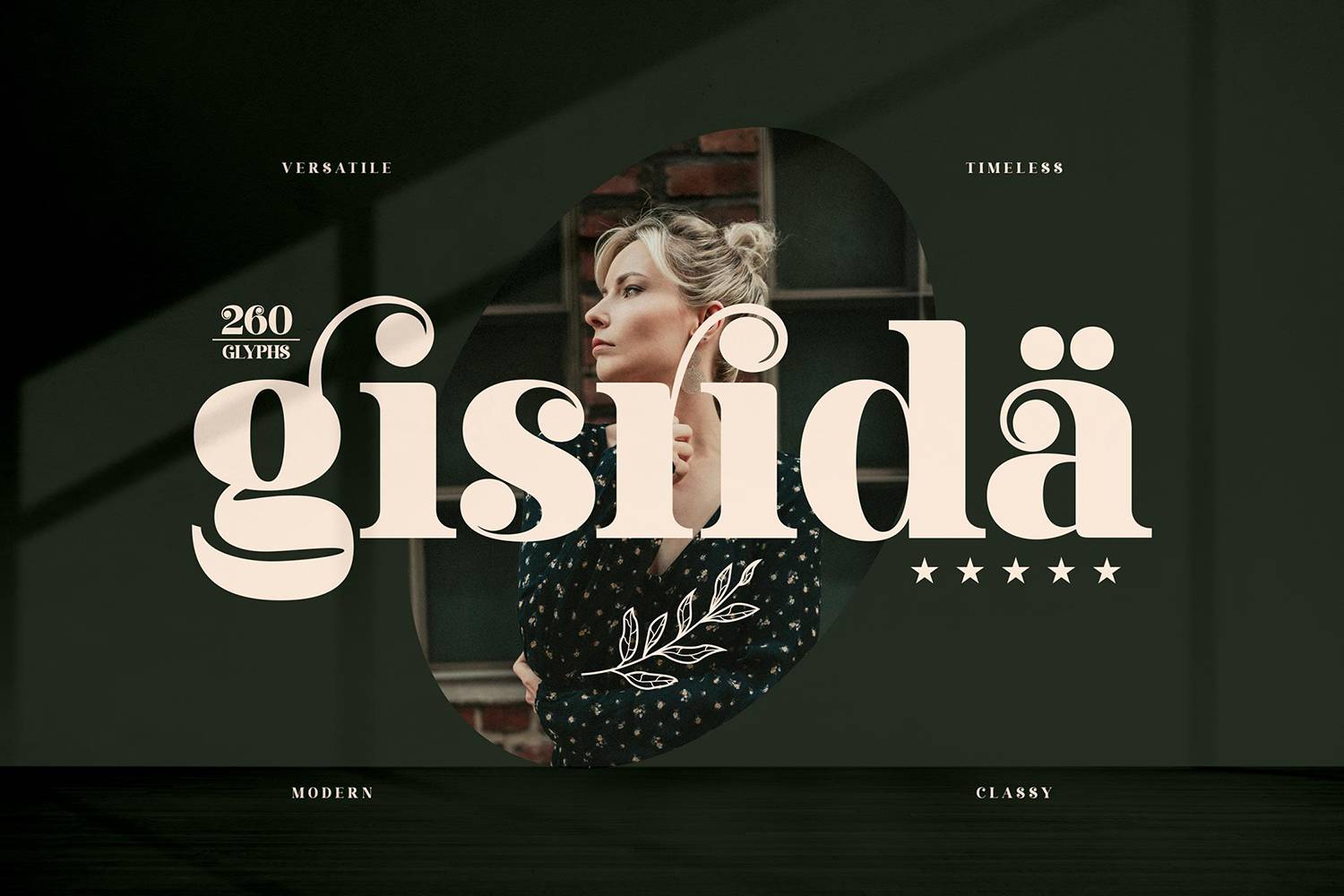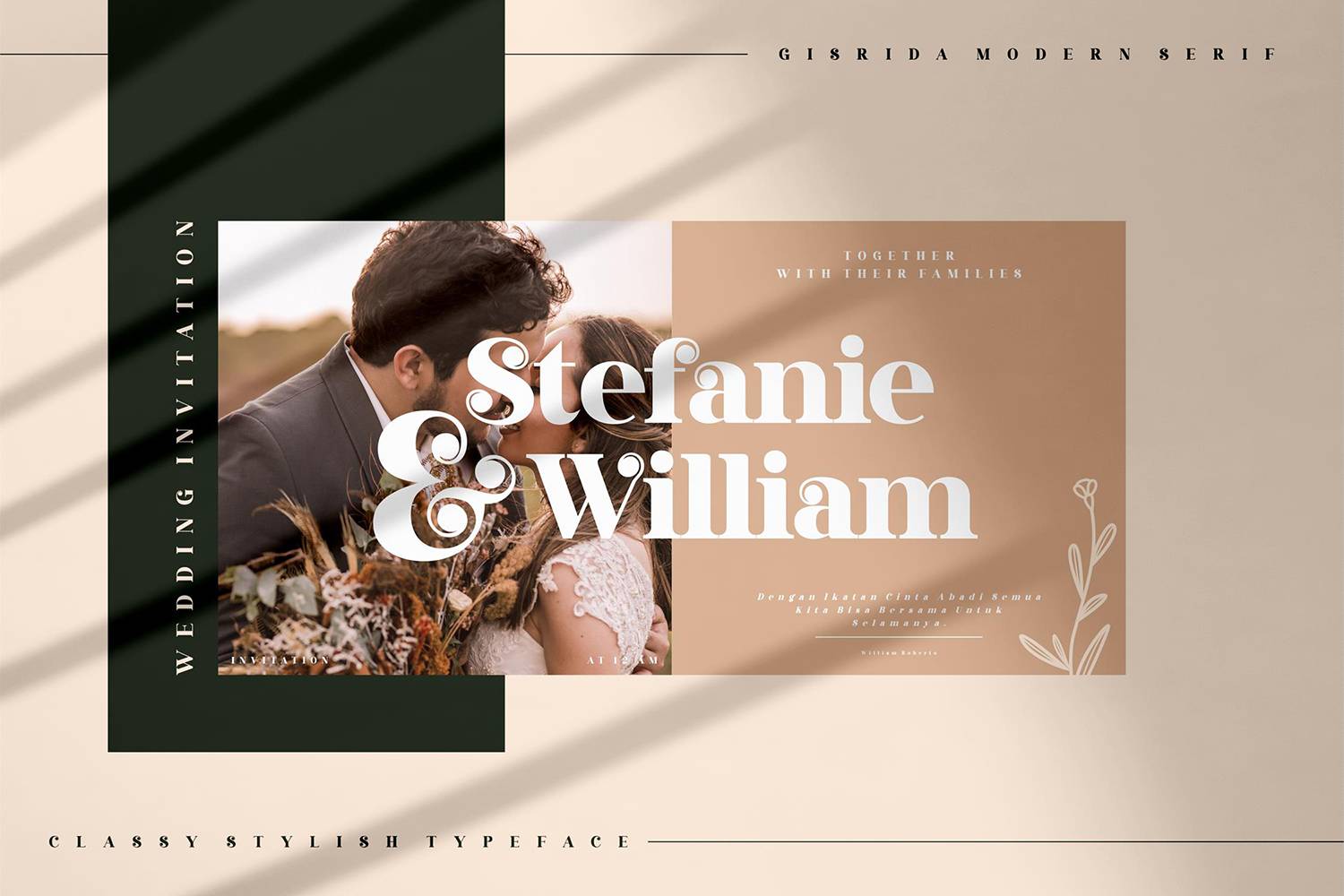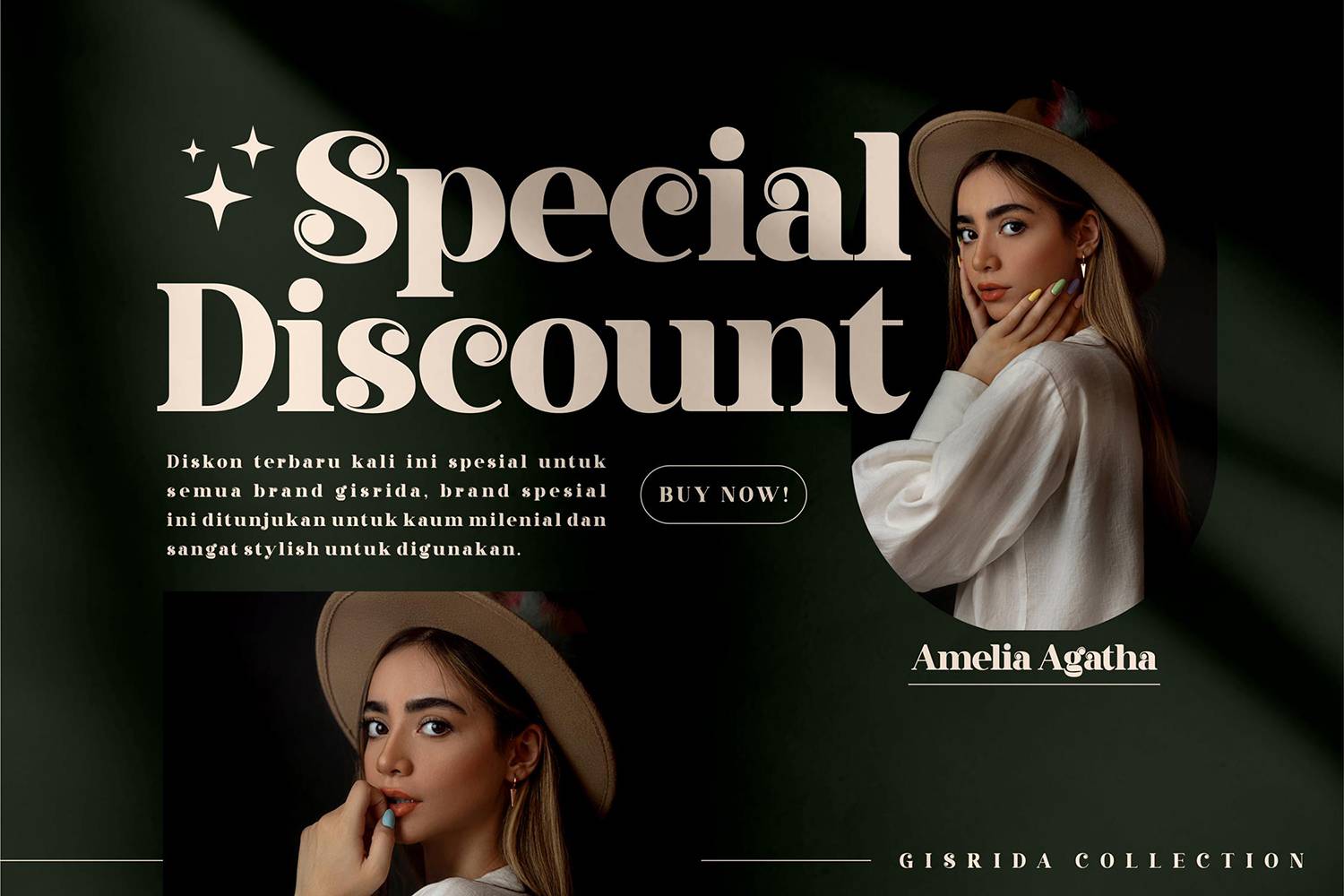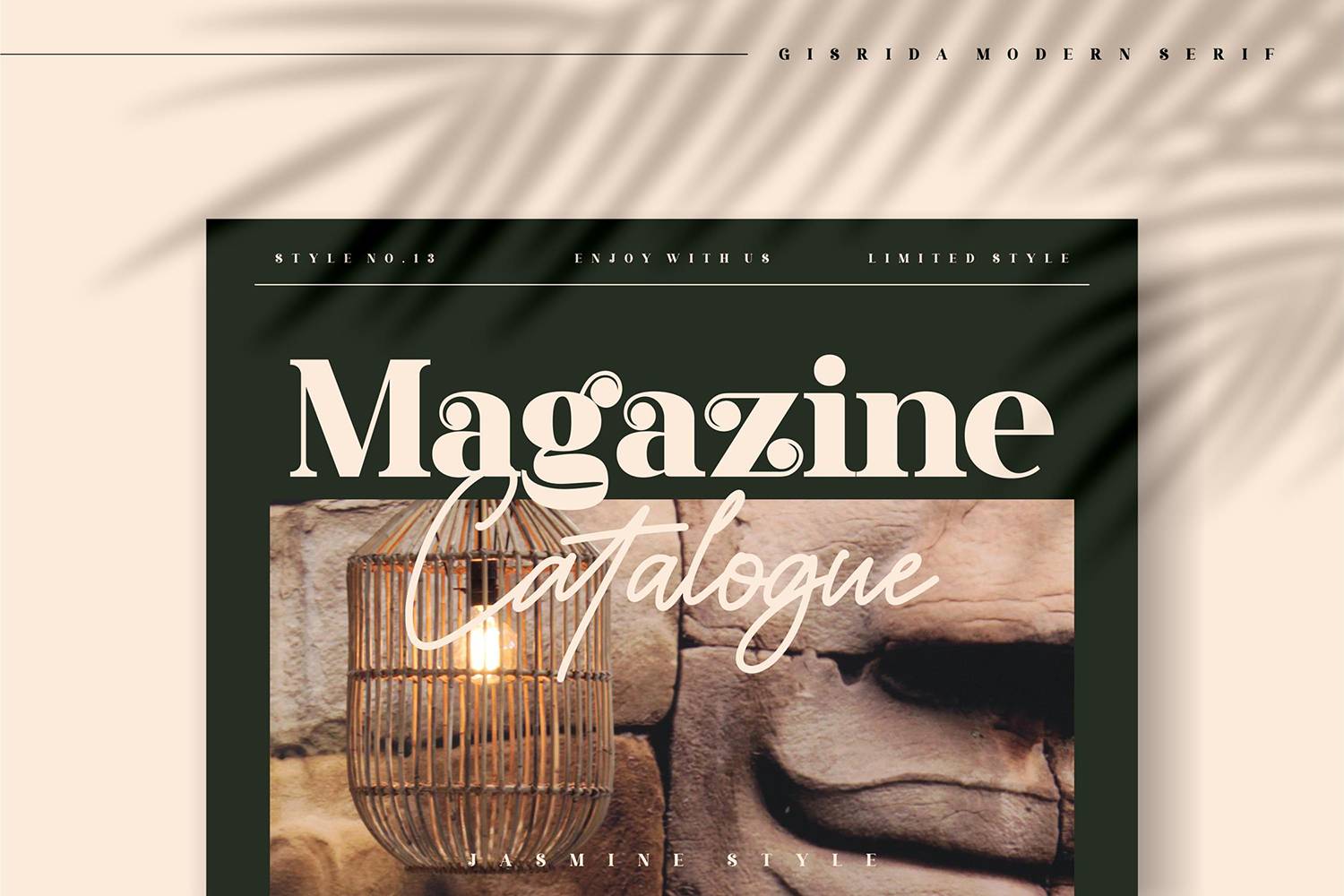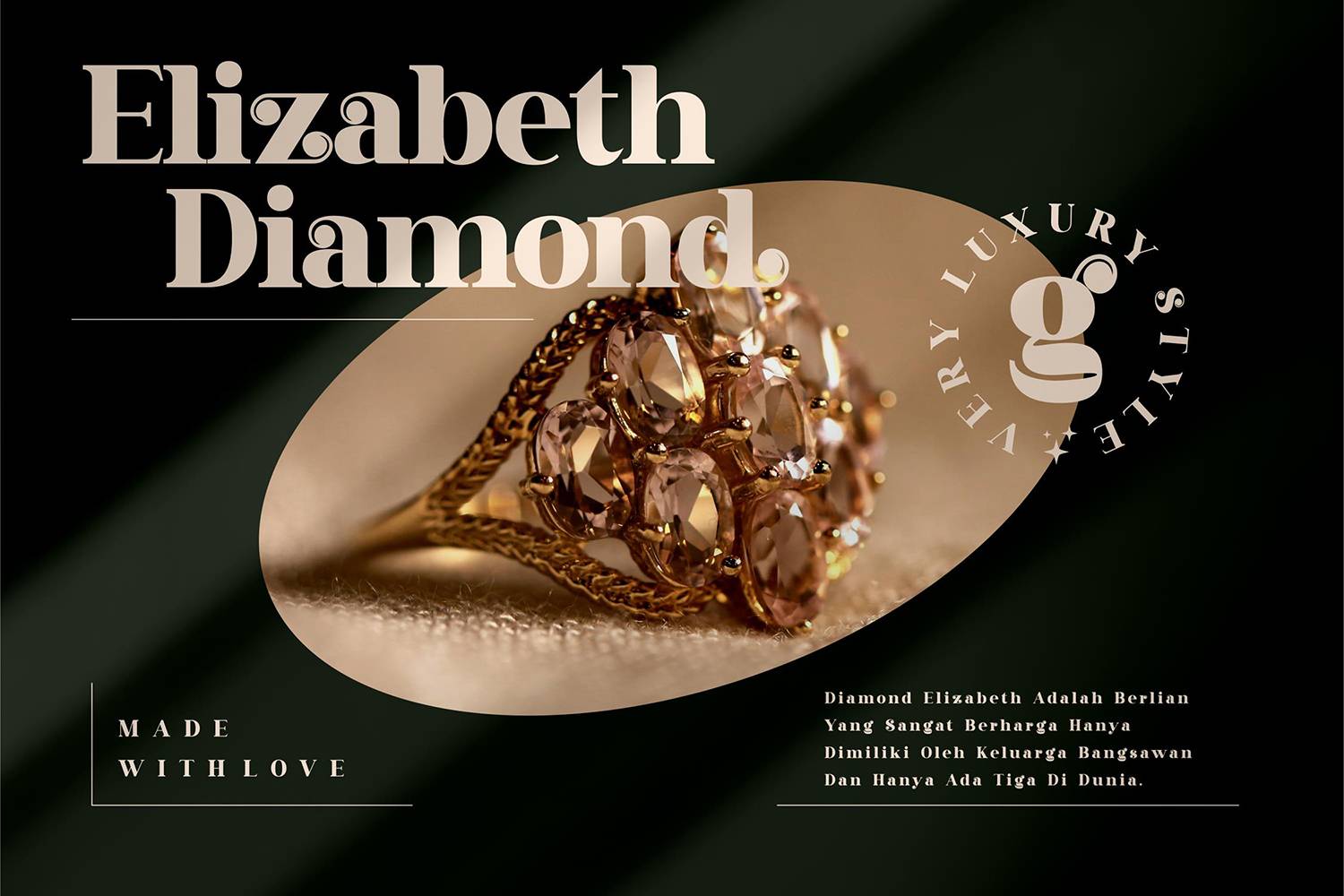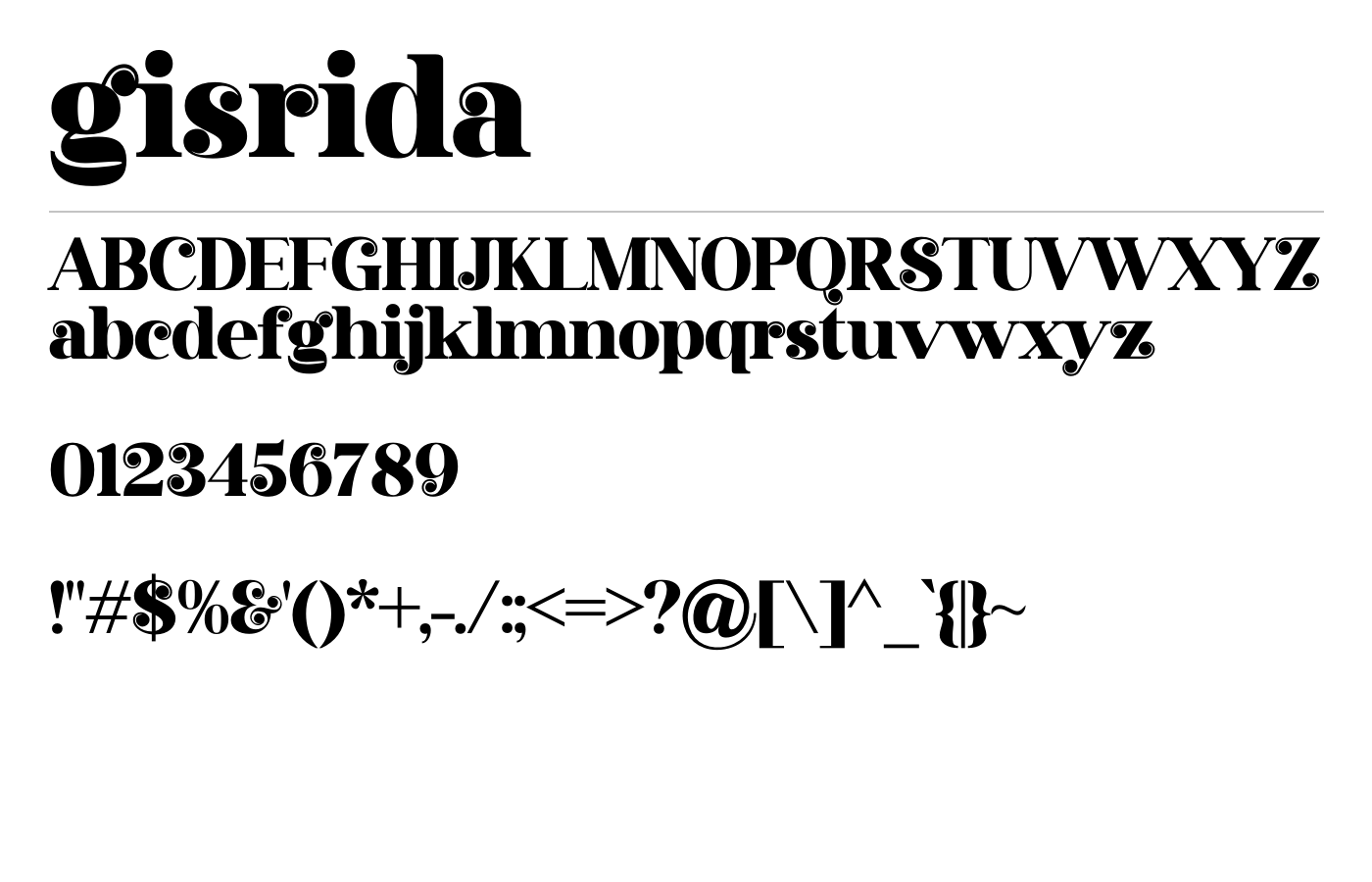
Gisrida is a bold, modern serif font with a high contrast between thick and thin strokes, featuring unique, playful teardrop-shaped terminals that give it a distinctive character. Its strong presence and elegant flair make it ideal for headlines, logos, and fashion branding where a dramatic and stylish look is desired. This font blends classic serif sophistication with contemporary creativity, perfect for making a memorable visual impact.
Gisrida Font